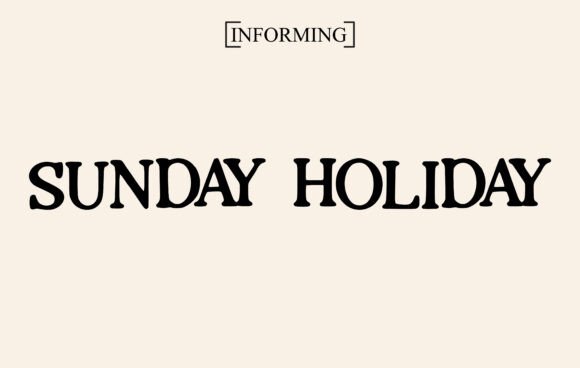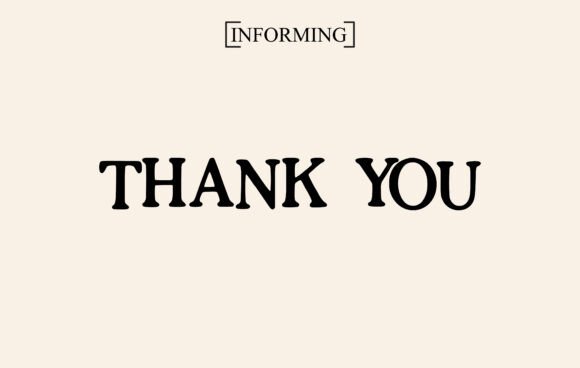
Introducing the Blessed Olive Font: Elevate Your Designs with Elegance and Versatility
In the world of typography, a font can make or break a design. It’s the foundation upon which creativity is built, and the right choice can elevate a project from ordinary to extraordinary. For designers and crafters seeking a font that embodies both elegance and versatility, the Blessed Olive Font is a true gem. This beautifully crafted font is designed to be a favorite among creatives, offering a wide range of possibilities for bringing ideas to life.
A Font of Unparalleled Legibility and Style
One of the standout features of the Blessed Olive Font is its exceptional legibility. Whether you’re using it for a title or body text, this font ensures that your message is conveyed with clarity and impact. Its clean lines and balanced proportions make it a joy to read, while its unique character injects a touch of personality into any design. This legibility, combined with its stylish appearance, makes the Blessed Olive Font an excellent choice for a variety of applications.
The versatility of the Blessed Olive Font is truly remarkable. Its adaptability makes it suitable for a vast array of design projects, including:
- Magazine Headlines: Grab the attention of your readers with bold, eye-catching titles that set the tone for your content.
- T-Shirts and Apparel: Create stylish and memorable designs for clothing and accessories that stand out from the crowd.
- Social Media: Enhance your online presence with professional-looking posts and stories that reflect your brand’s personality.
- Branding: Establish a strong visual identity for your business or product with a font that exudes quality and sophistication.
- Wedding Invitations: Add a touch of elegance to your wedding stationery with beautiful, bespoke typography.
- Cards and Stationery: Create personalized and heartfelt greetings that showcase your thoughtfulness and attention to detail.
Why Choose the Blessed Olive Font?
With so many fonts available, what sets the Blessed Olive Font apart? Here are just a few reasons why designers and crafters are falling in love with this exceptional typeface:
- Unique Character: The Blessed Olive Font boasts a distinctive style that adds a touch of warmth and personality to any design.
- High Versatility: Its adaptability makes it suitable for a wide range of projects, from digital media to print materials.
- Exceptional Legibility: Enjoy clear and effortless reading, whether your text is large or small.
- Elegant Aesthetic: Elevate your designs with a sophisticated and refined look that commands attention.
The Blessed Olive Font is more than just a typeface – it’s a creative partner that can help bring your ideas to life. With its unique blend of style, legibility, and versatility, it’s an excellent addition to any designer’s toolkit. Whether you’re working on a commercial project or a personal craft, this font has the potential to take your work to new heights. Discover the possibilities with the Blessed Olive Font and experience the difference it can make in your designs.